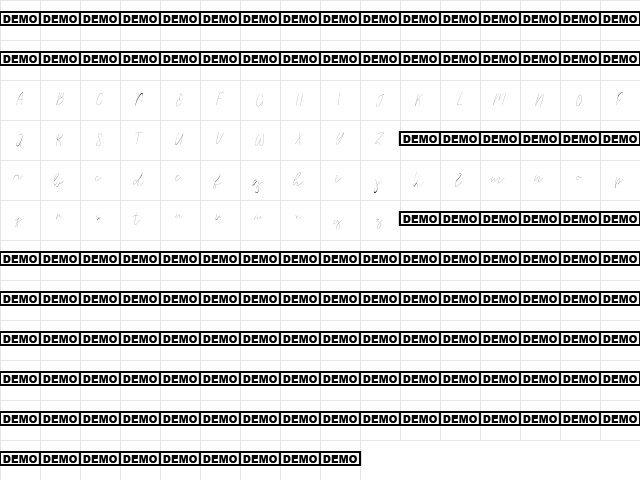
Warm Memories Light Regular
Design Context for Warm Memories Light Typeface
Warm Memories Light takes a measured approach to typography — its balanced proportions and neutral character make it a reliable workhorse for both digital and print work. The delicate stroke weight brings airiness and refinement to layouts.